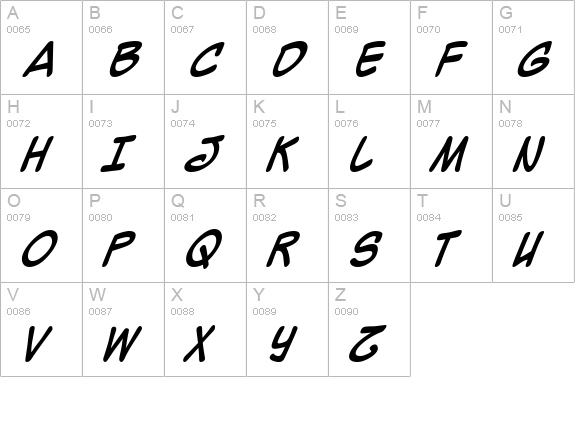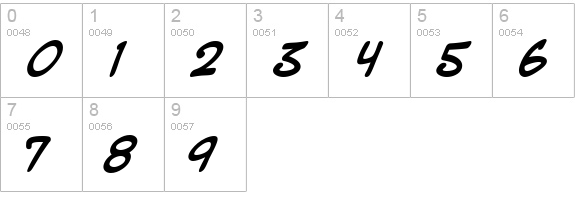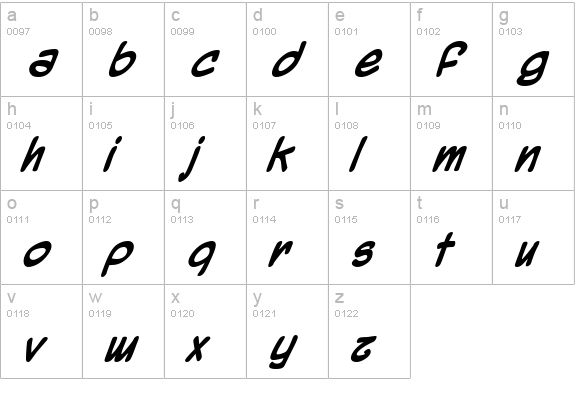
Mighty Zeo Bold is a strong, high-contrast variant in the Mighty typeface family \xE2\x80\x94 well suited to headlines, attention-grabbing titles, and strong calls-to-action.
Mighty Zeo Bold is a striking and powerful font that commands attention with its bold and impactful design. With strong, thick lines and a modern aesthetic, this font exudes confidence and strength. Perfect for headlines, logos, and other display purposes, Mighty Zeo Bold stands out and makes a statement. The best part is that Mighty Zeo Bold is completely free to download at FontsMarket.com. You can easily access this dynamic font and elevate your design projects without any cost. Don't miss out on the opportunity to add this versatile and eye-catching font to your collection today!